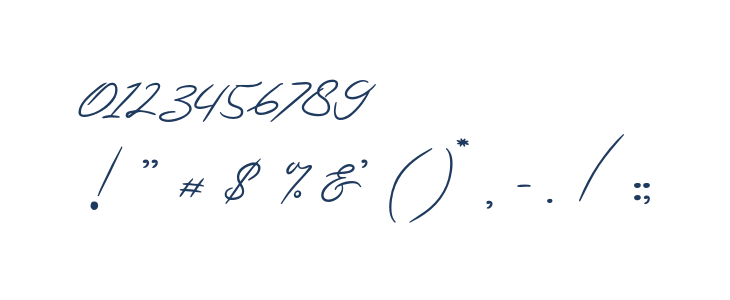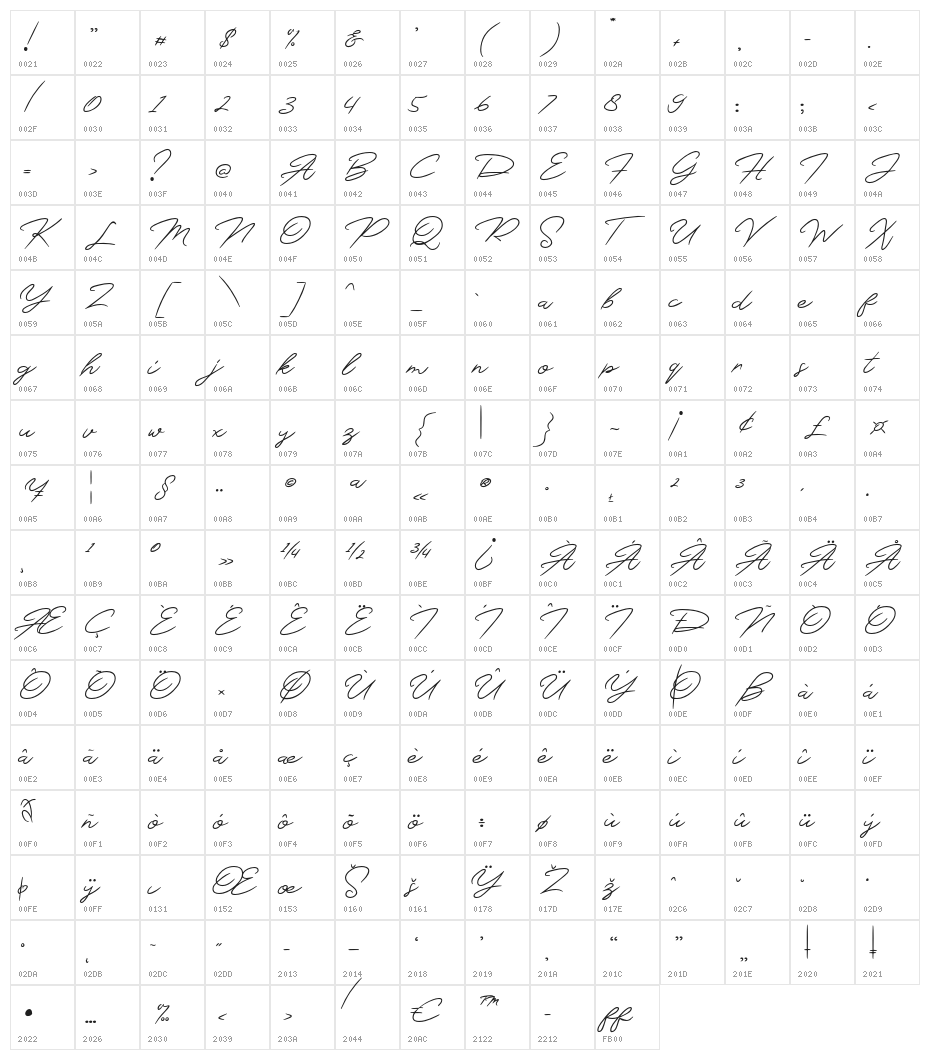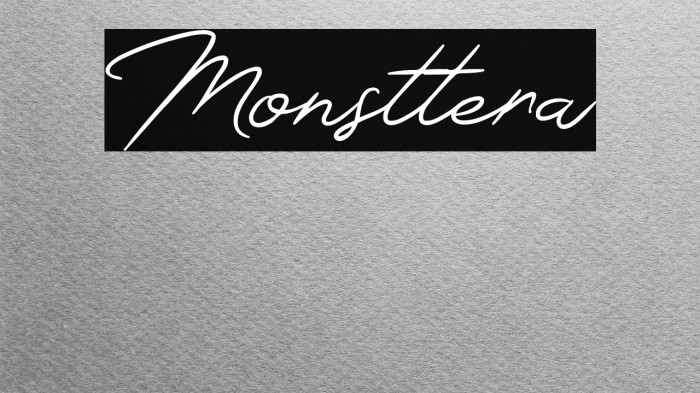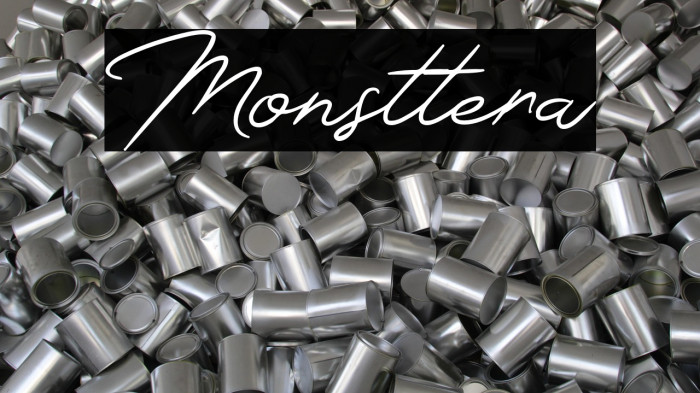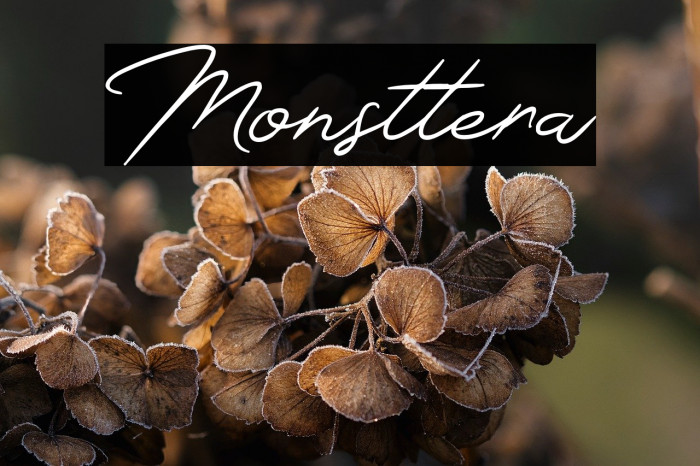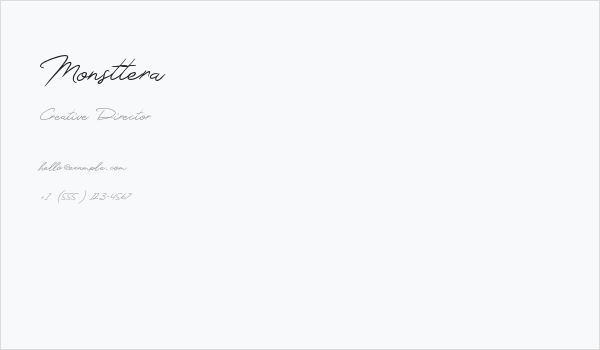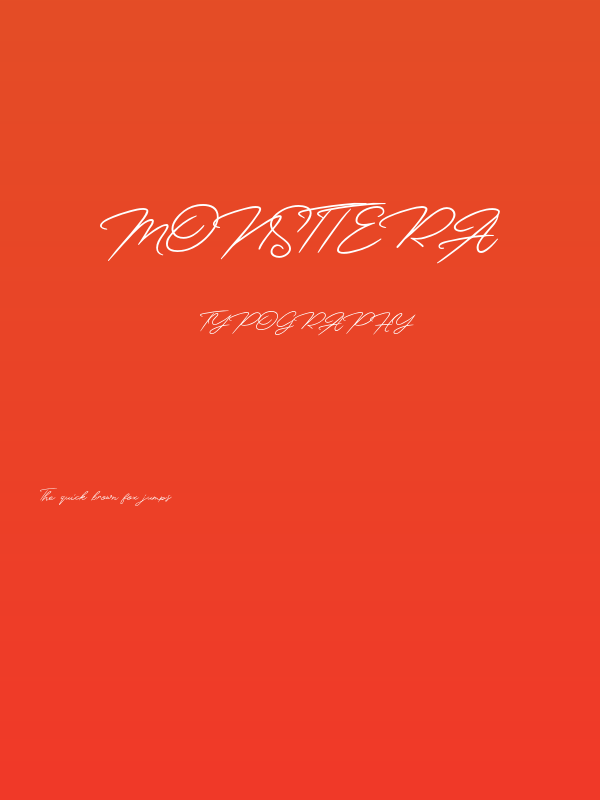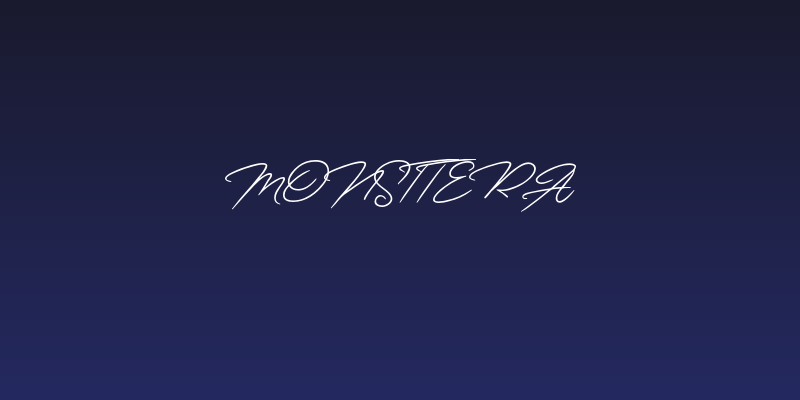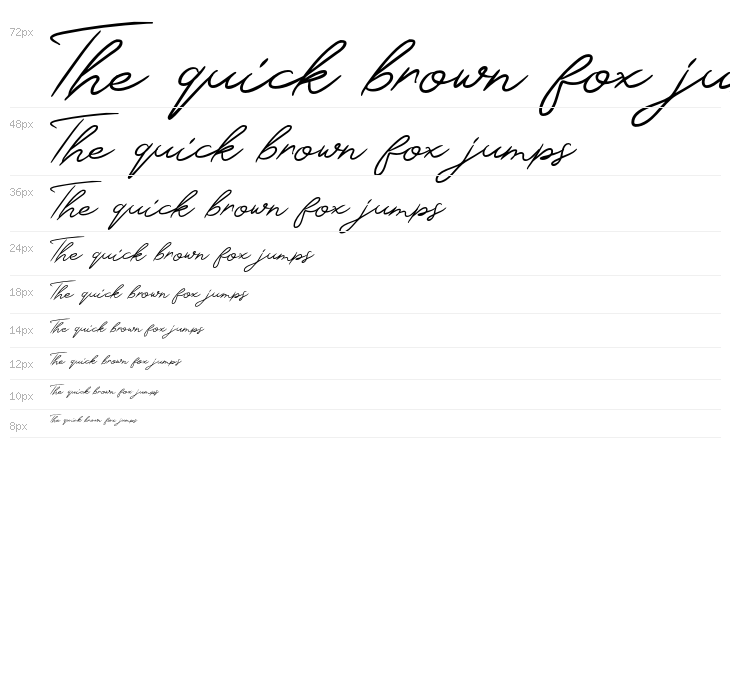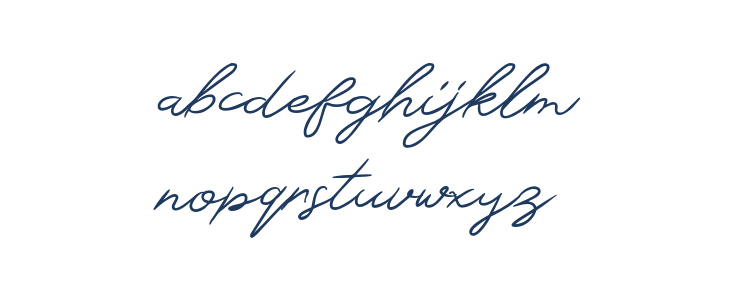
Monsttera Font
Monsttera Description
This font exudes elegance and fluidity with its cursive script style. The letters are interconnected, creating a seamless flow that mimics natural handwriting. The strokes are smooth and consistent, with a slight slant to the right, enhancing its graceful appearance. The uppercase letters are slightly larger and more ornate, while the lowercase letters maintain a consistent height, contributing to its readability. The numerals are clear and align well with the overall style, and the special characters are thoughtfully designed to match the script's aesthetic. This font is perfect for adding a personal touch to any project.
| Overall Style | Elegant, Handwritten |
| Proposed Projects | Ideal for wedding invitations, greeting cards, personal branding, and elegant logos. |